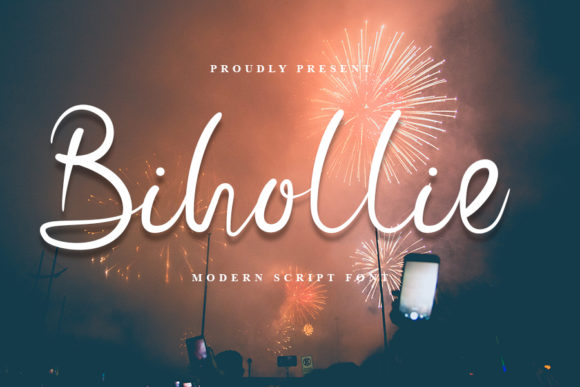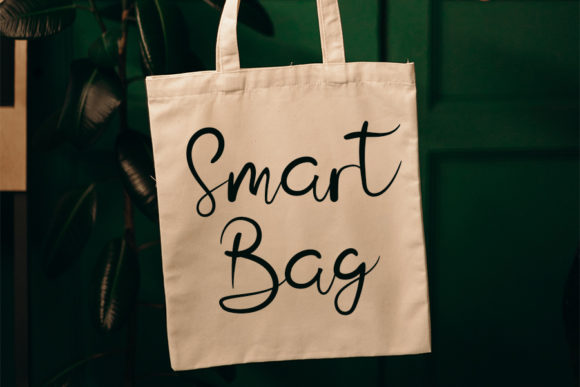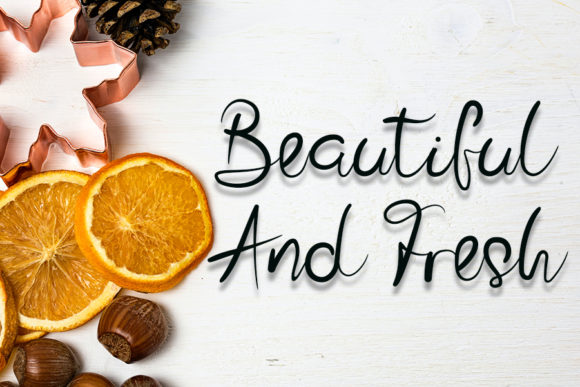
About Bihollie Font
Bihollie is a beautiful, rich, and elegant handwritten font. It is ideal for holiday-themed greeting cards and for any crafting project that requires a romantic touch.